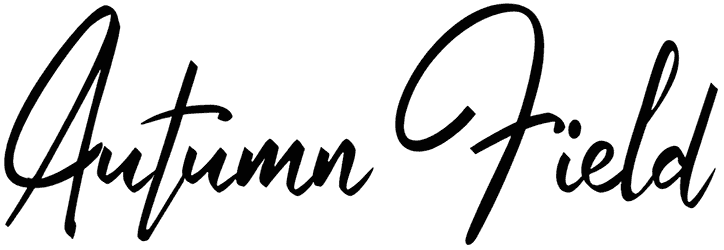
Autumn Field Font
This is what we can call delightful. This appealing Autumn font with its natural and cursive form will be a nice adornment for your Thanksgiving postcard, a makeup artist business card, or an art gallery sign. Just ignore the absence of numbers and use the Autumn Field font to make cheerful designs and attract a lot of followers.